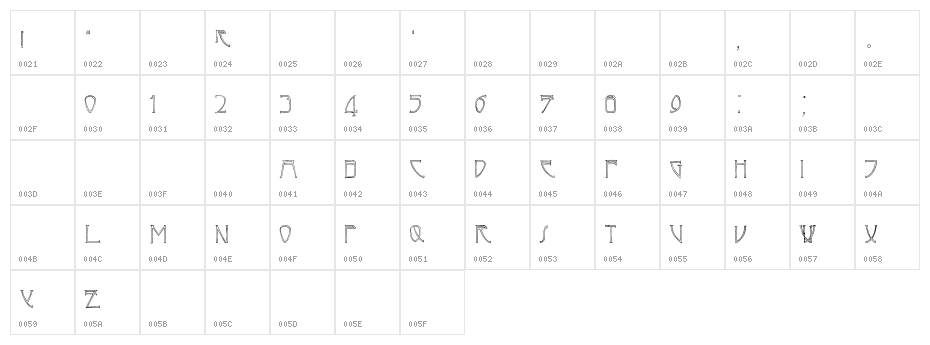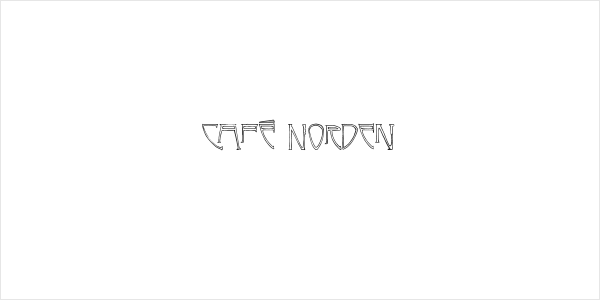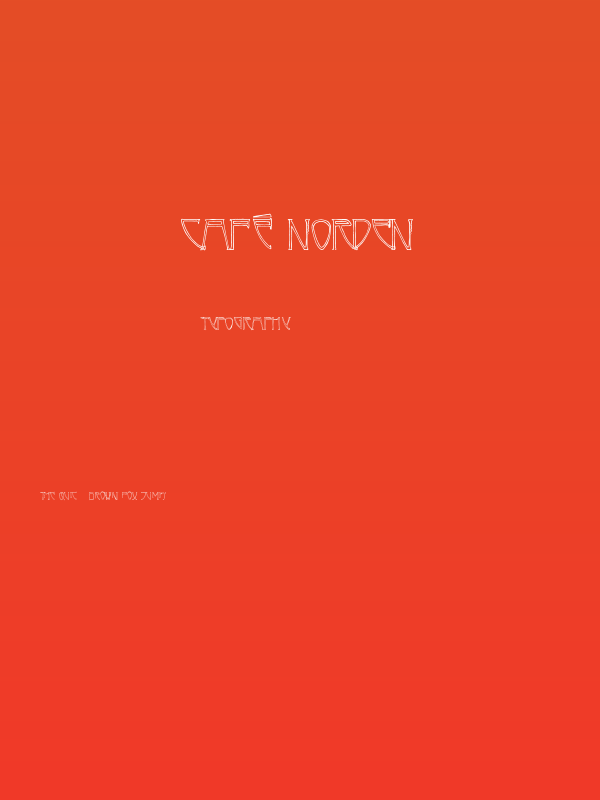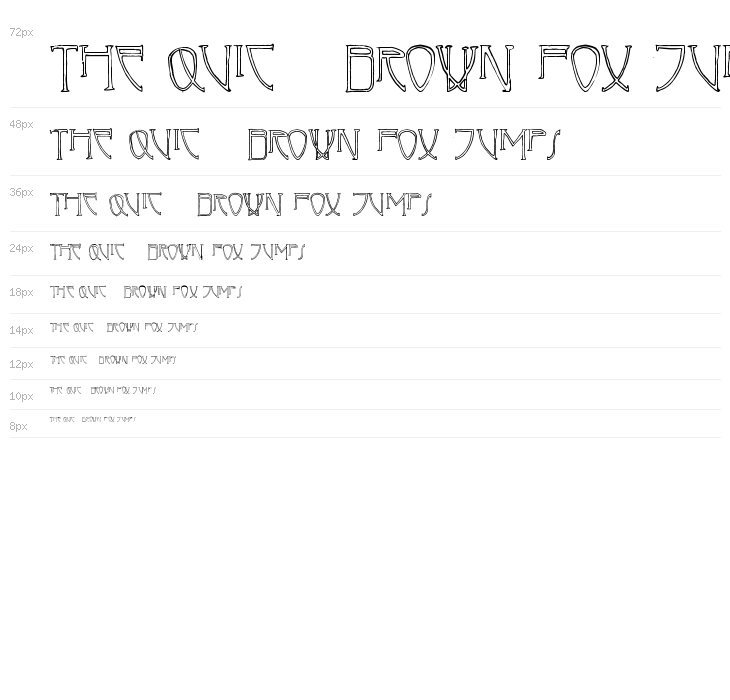
Café Norden Font
Café Norden Description
This font features a unique and artistic style with intricate line work and geometric shapes. The characters are composed of thin, angular lines that create a sense of elegance and sophistication. Each letter has a distinct architectural quality, with sharp edges and pointed tips that give it a modern yet timeless appeal. The numbers and special characters maintain the same design ethos, ensuring consistency across all glyphs. This font is ideal for projects that require a touch of creativity and flair, making it suitable for artistic and decorative purposes.
| Use Case | Logos, Posters, Artistic Designs |
| Proposed Projects | Ideal for artistic projects, decorative designs, and creative branding. |